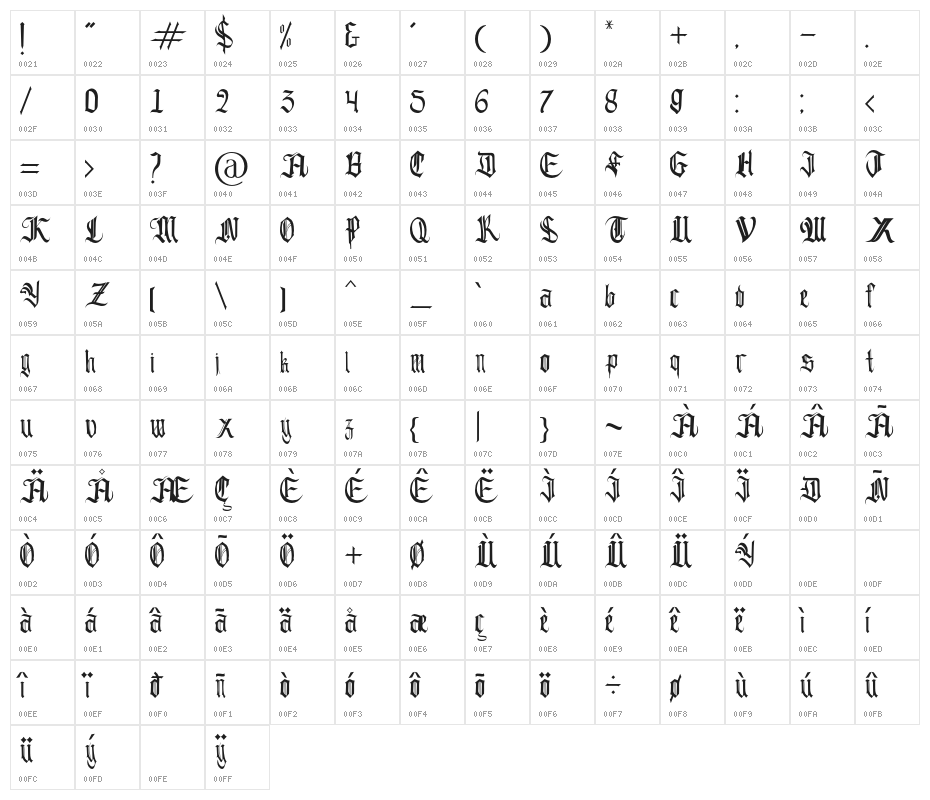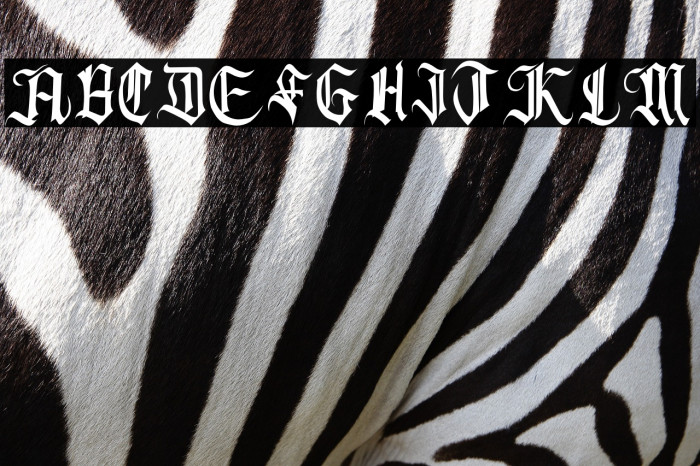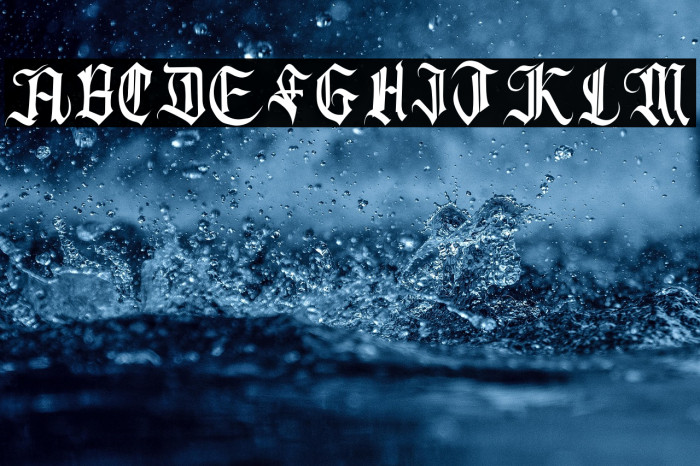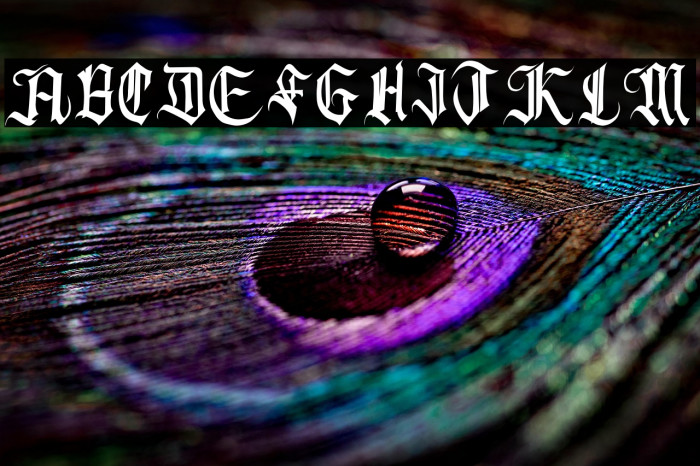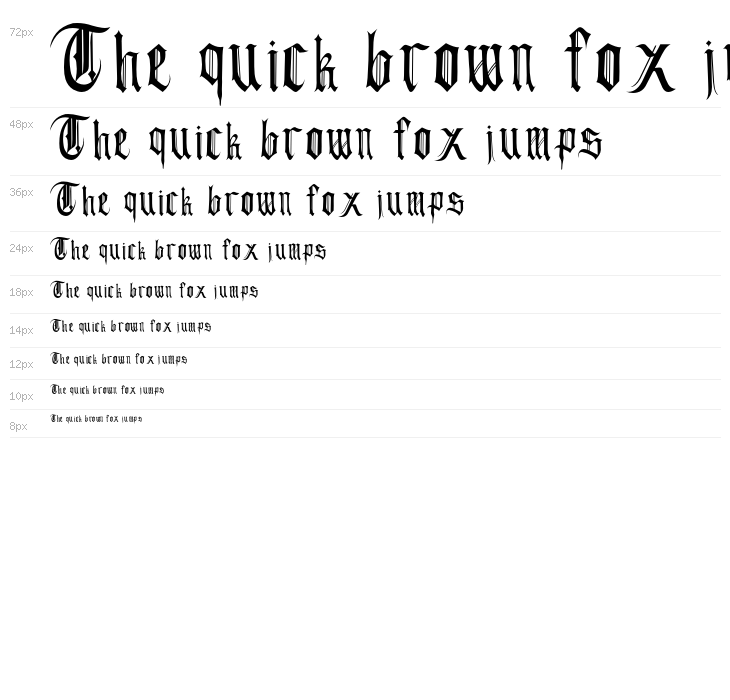
Blackshadow Font
Blackshadow Description
This font exudes a classic and dramatic style, reminiscent of traditional calligraphy with a gothic influence. The characters are sharply defined with bold, angular strokes that create a sense of strength and authority. The uppercase letters are particularly ornate, featuring intricate serifs and flourishes that add to the font's decorative appeal. The lowercase letters maintain a consistent style, offering a harmonious flow that complements the uppercase set. Numerals are equally stylized, ensuring a cohesive look across all characters. The special characters are designed with the same attention to detail, making this font suitable for a variety of creative applications.
| Overall Style | Classic |
| Use Case | Logos, Headlines, Posters |
| Proposed Projects | Ideal for branding, logos, posters, and any project requiring a strong, historical aesthetic. |